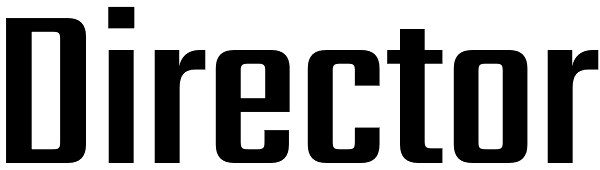
Director
Director is a minimal display family from ITF for the Latin script. Across each of the family’s five fonts, all of the horizontal strokes share a consistent thickness, while the vertical strokes grow thicker with each new weight. So the Regular’s...